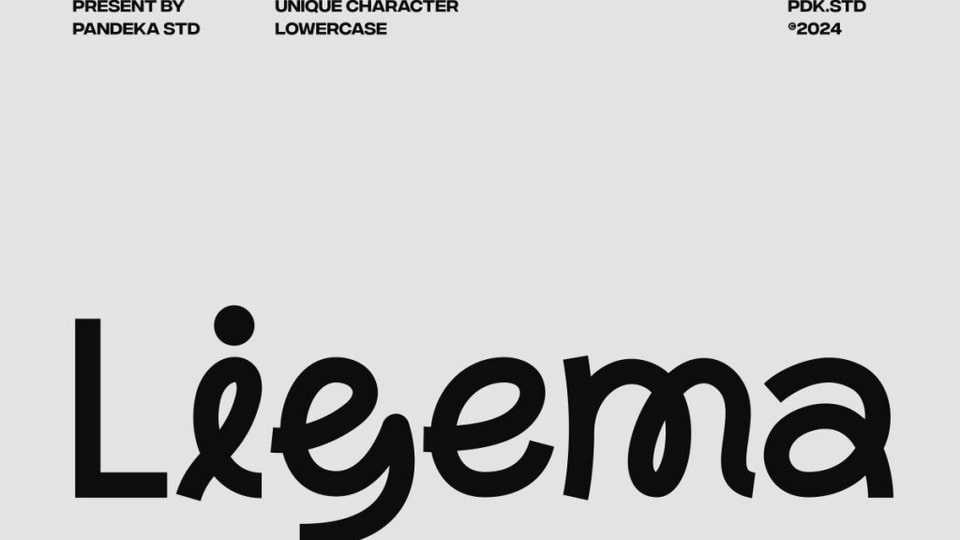
Download Ligema font, an experimental and unique typeface with stylish curves and a modern visual design. Ligema is here to make your projects more stunning and eye-catching.